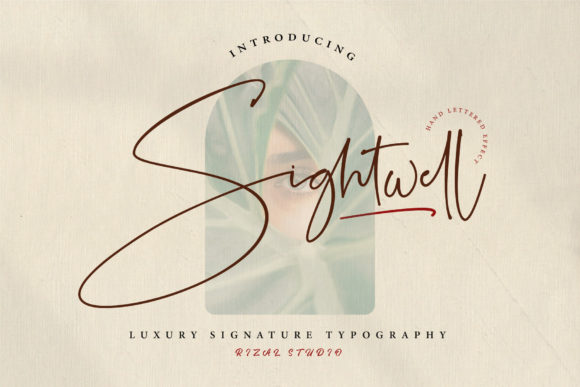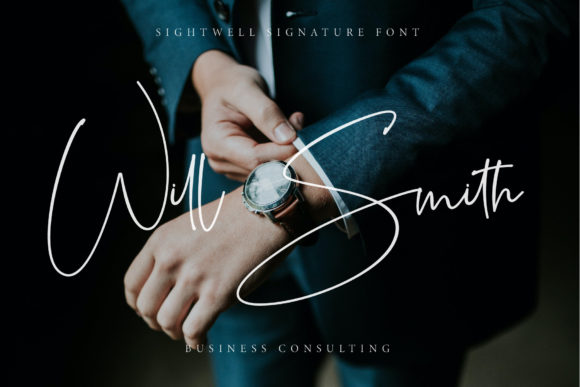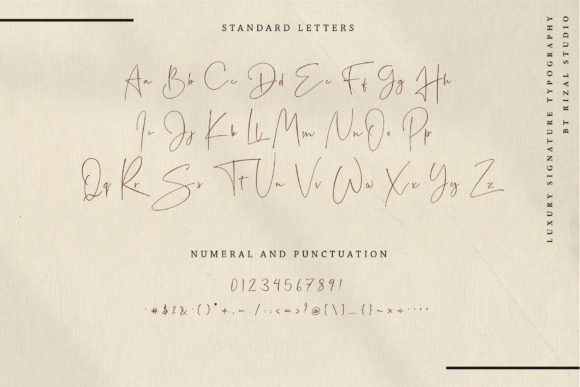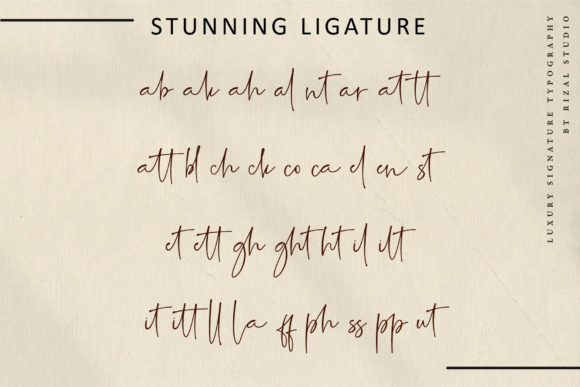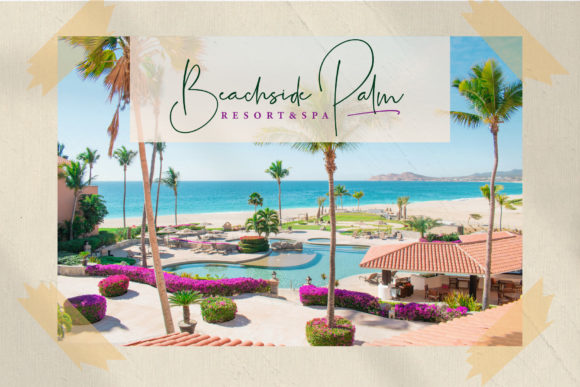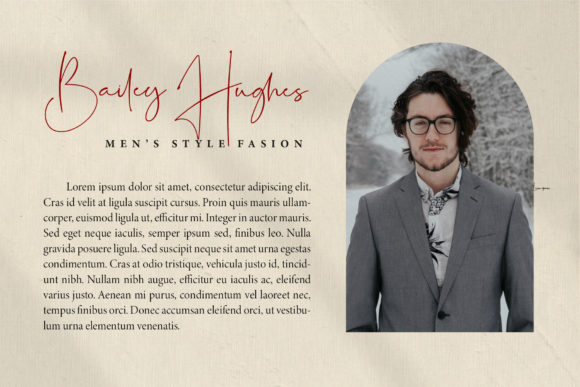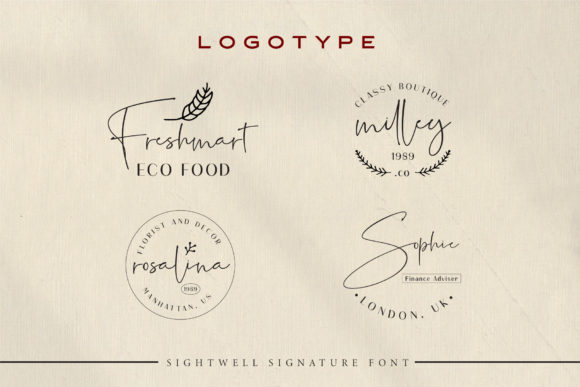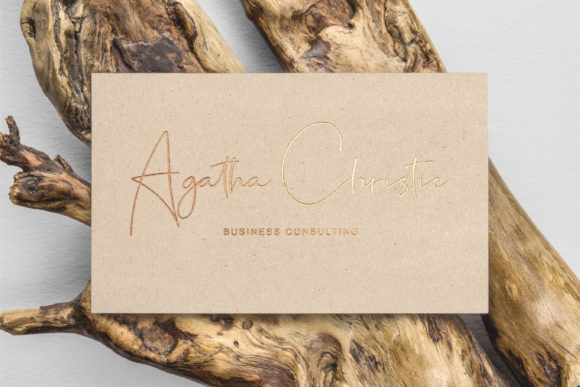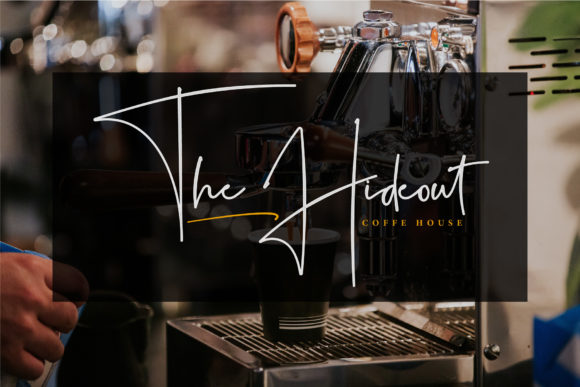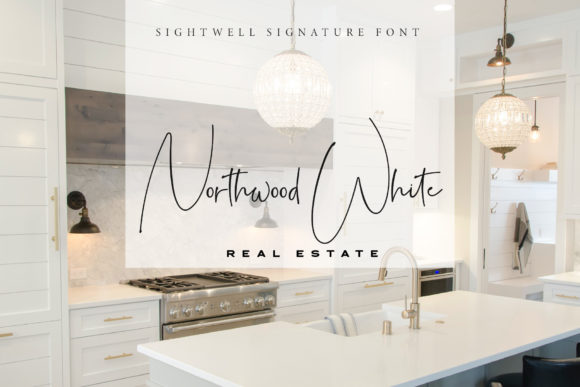
Sightwell Signature Font
About Sightwell Signature Font
Sightwell Signature is a chic, refined script font that emanates sophistication and elegance. Its stylish alternates and ligatures make this font the perfect match for any project. Sightwell Signature is PUA encoded which means you can access all of the glyphs and swashes with ease!